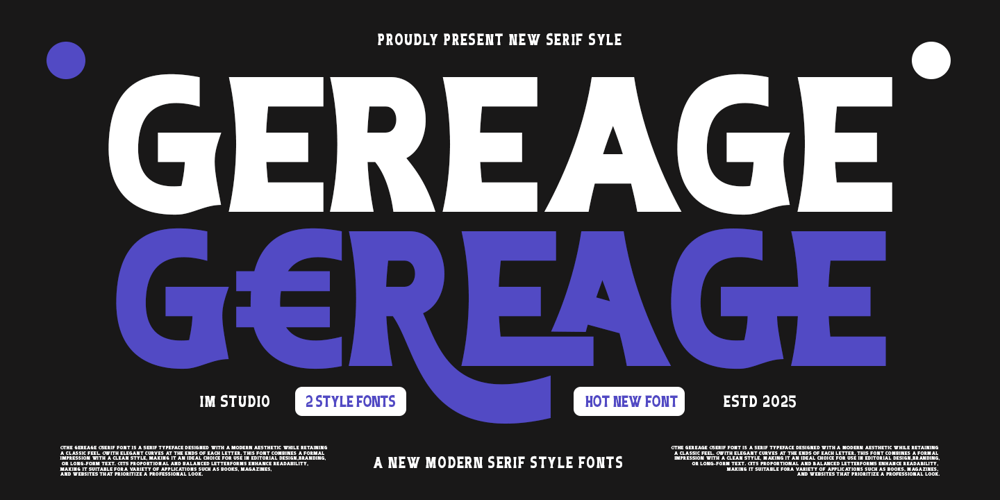
Gereage
Gereage font
Gereage Font Family was designed by Ikhsan Maulana and published by IM Studio. Gereage contains 1 styles and family package options. Gereage is a graceful and enchanting typeface that seamlessly combines classic beauty with contemporary flair. Its design boasts elegantly crafted curves and refined letterforms, creating a harmonious flow that captivates the eye. I have enhanced Gereage with a variety of meticulously designed ligatures and alternate characters, offering even more versatility and creative possibilities. These features add a sense of sophistication and artistry to any project, making it perfect for branding, wedding invitations, or editorial layouts. Gereage exudes a timeless charm that elevates the visual appeal, and its delicate balance of modern elegance and vintage-inspired details makes it the perfect choice for those seeking a typeface that radiates both style and personality.